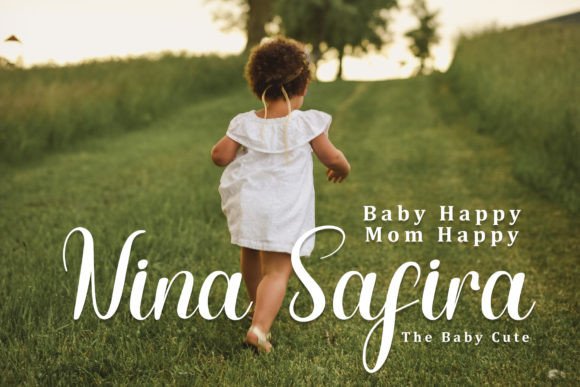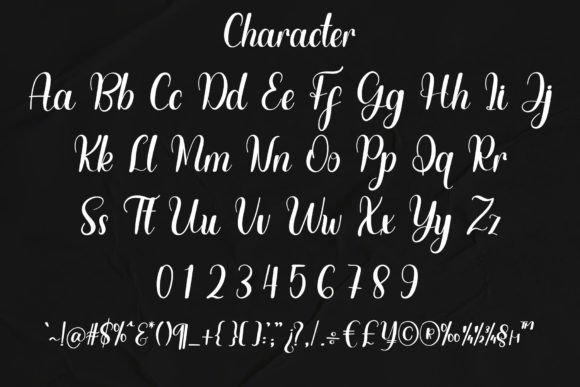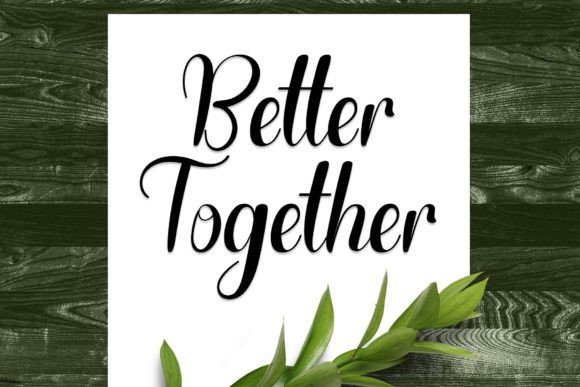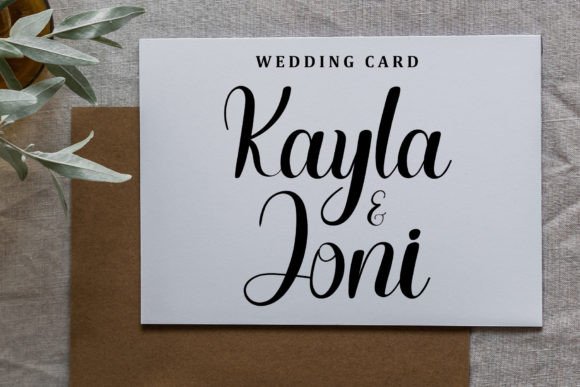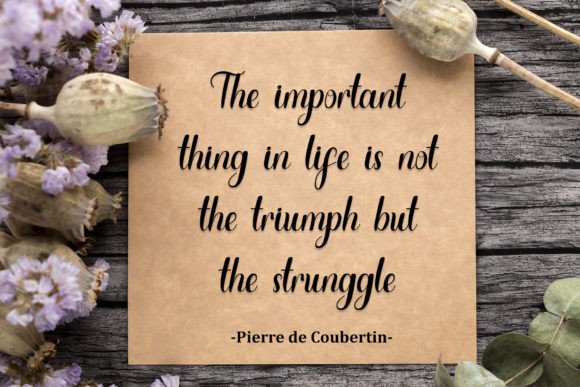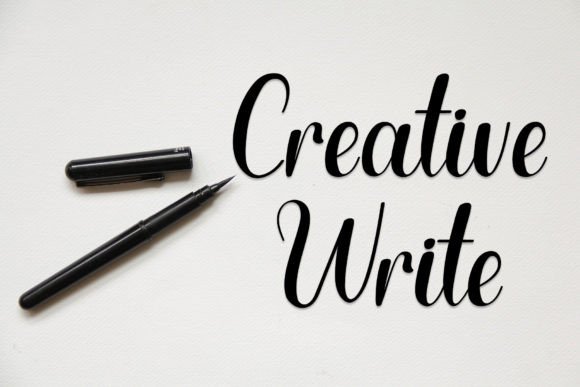
Elevate Your Design with the Elegance of Calligraphy Fonts
Calligraphy is a timeless and sophisticated art form that has been a cornerstone of beautiful design for centuries. In the world of typography, calligraphy fonts have gained immense popularity among designers, crafters, and artists. A calligraphy font is a stylish and elegant signature script font that can instantly add a touch of luxury to any design project. In this article, we’ll explore the world of calligraphy fonts, their uses, and benefits, and provide valuable insights for designers and crafters.
What is a Calligraphy Font?
A calligraphy font is a type of font that mimics the elegant and flowing style of traditional calligraphy. It’s characterized by its beautiful, cursive script, and often features flourishes, swashes, and other decorative elements. Calligraphy fonts are perfect for adding a touch of sophistication and elegance to any design project. Whether you’re working on a product packaging, branding project, magazine, social media, or wedding design, a calligraphy font is sure to make your design stand out.
Uses of Calligraphy Fonts
Calligraphy fonts are versatile and can be used in a variety of design projects, including:
- Product Packaging: Add a touch of luxury to your product packaging with a calligraphy font. It’s perfect for high-end products, cosmetics, and food packaging.
- Branding Projects: Create a sophisticated brand identity with a calligraphy font. It’s ideal for logos, business cards, and letterheads.
- Magazines and Publications: Use calligraphy fonts to add a touch of elegance to your magazine or publication. It’s perfect for headings, titles, and quotes.
- Social Media: Add a touch of sophistication to your social media posts with a calligraphy font. It’s perfect for creating engaging and eye-catching graphics.
- Weddings and Events: Create beautiful wedding invitations, save-the-date cards, and event branding with a calligraphy font.
Benefits of Using Calligraphy Fonts
Using a calligraphy font in your design project offers several benefits, including:
- Elegance and Sophistication: Calligraphy fonts add a touch of elegance and sophistication to any design project.
- Uniqueness: Calligraphy fonts are unique and can help your design stand out from the crowd.
- Flexibility: Calligraphy fonts can be used in a variety of design projects, from product packaging to social media graphics.
- Emotional Connection: Calligraphy fonts can evoke emotions and create a connection with your audience.
Tips for Using Calligraphy Fonts
Here are some valuable tips for using calligraphy fonts in your design project:
- Choose the Right Font: Select a calligraphy font that matches your brand’s tone and style.
- Use it Sparingly: Use calligraphy fonts sparingly to avoid overwhelming your design.
- Pair it with Other Fonts: Pair calligraphy fonts with other fonts to create a beautiful contrast.
- Experiment with Colors: Experiment with different colors to find the perfect match for your calligraphy font.
| Font Name | Calligraphy Font |
In conclusion, calligraphy fonts are a powerful tool for designers and crafters. They offer a unique and elegant way to add a touch of sophistication to any design project. With their versatility, flexibility, and emotional connection, calligraphy fonts are perfect for a variety of design projects. By following the tips outlined in this article, you can create beautiful and effective designs that showcase the elegance of calligraphy fonts.